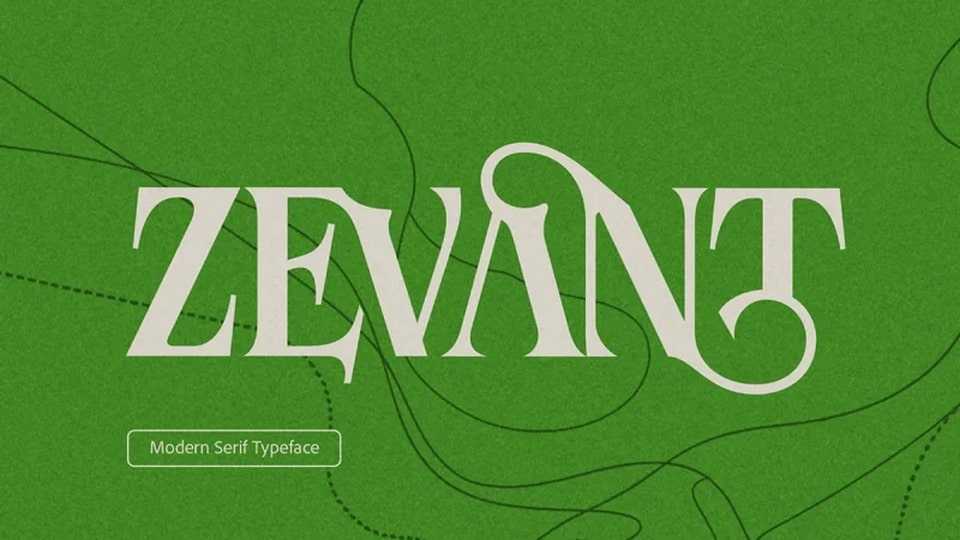
Zevant Font › Fontesk – Download Grátis
Download Zevant font, a unique and creative serif typeface designed to bring elegance and sophistication to your designs with its distinctive decorative ligature pairs.